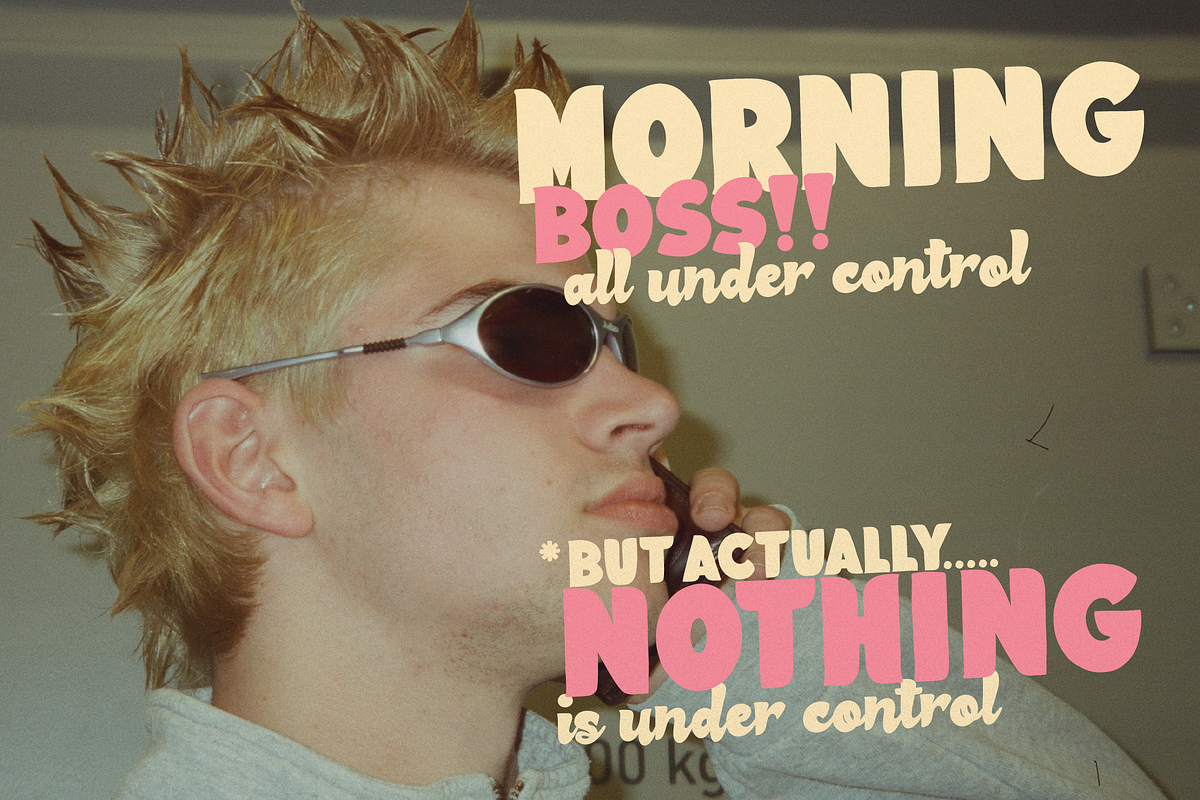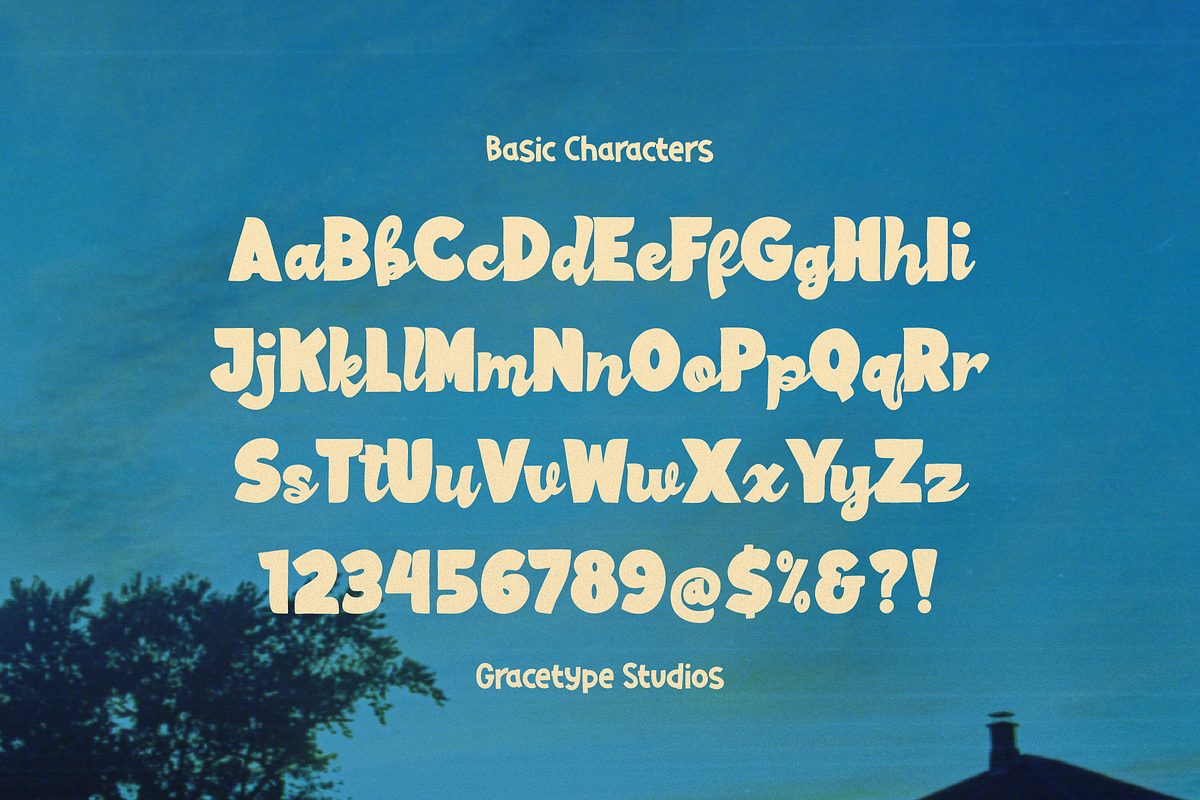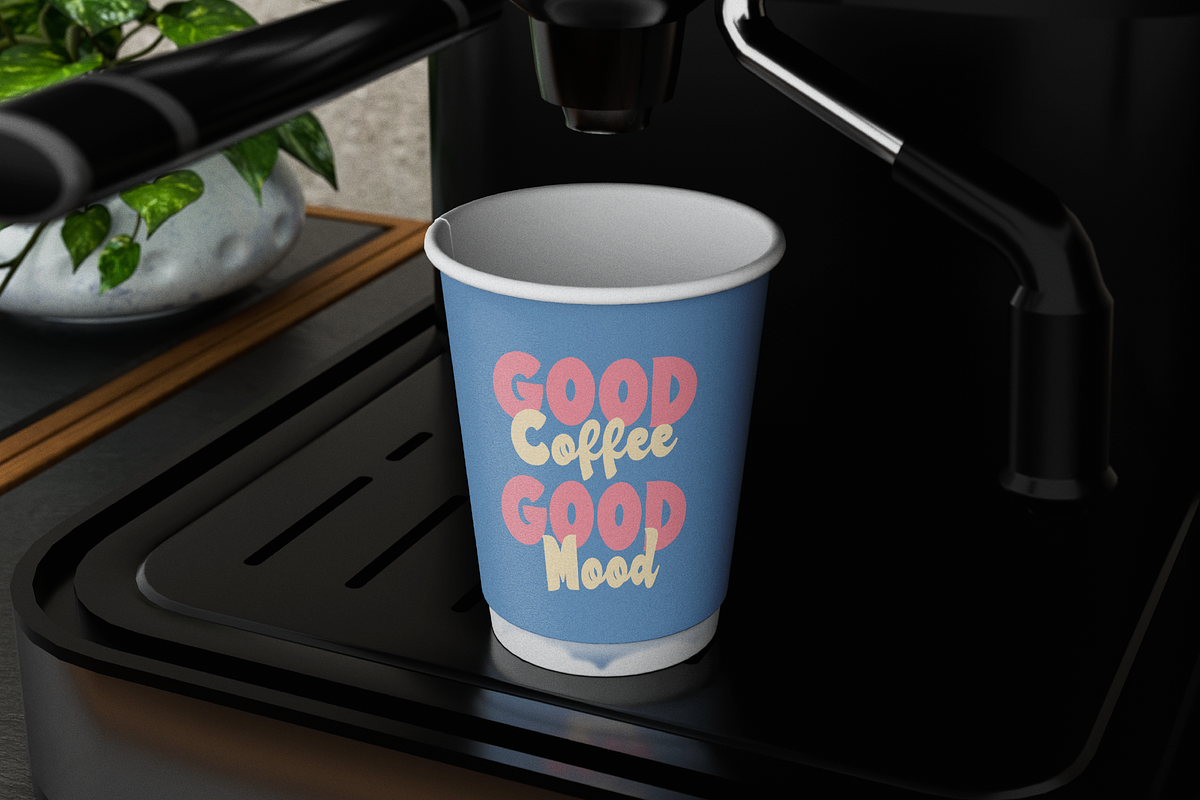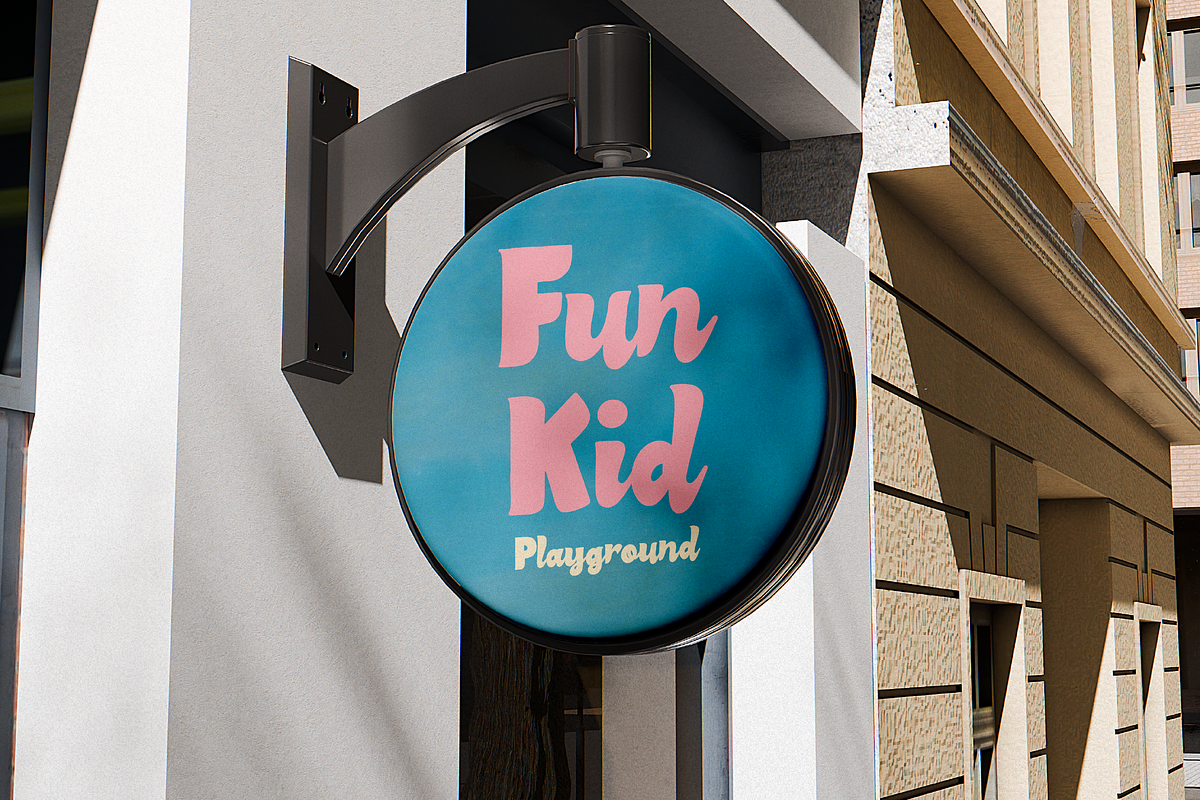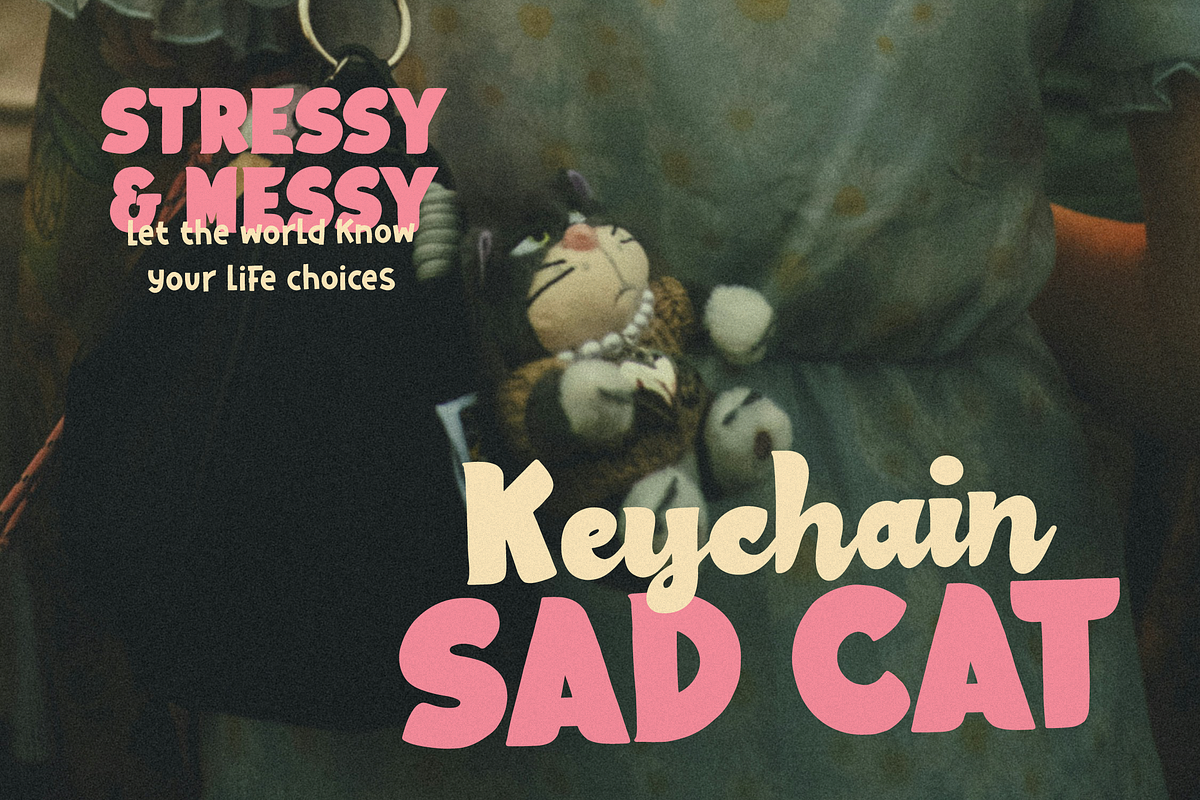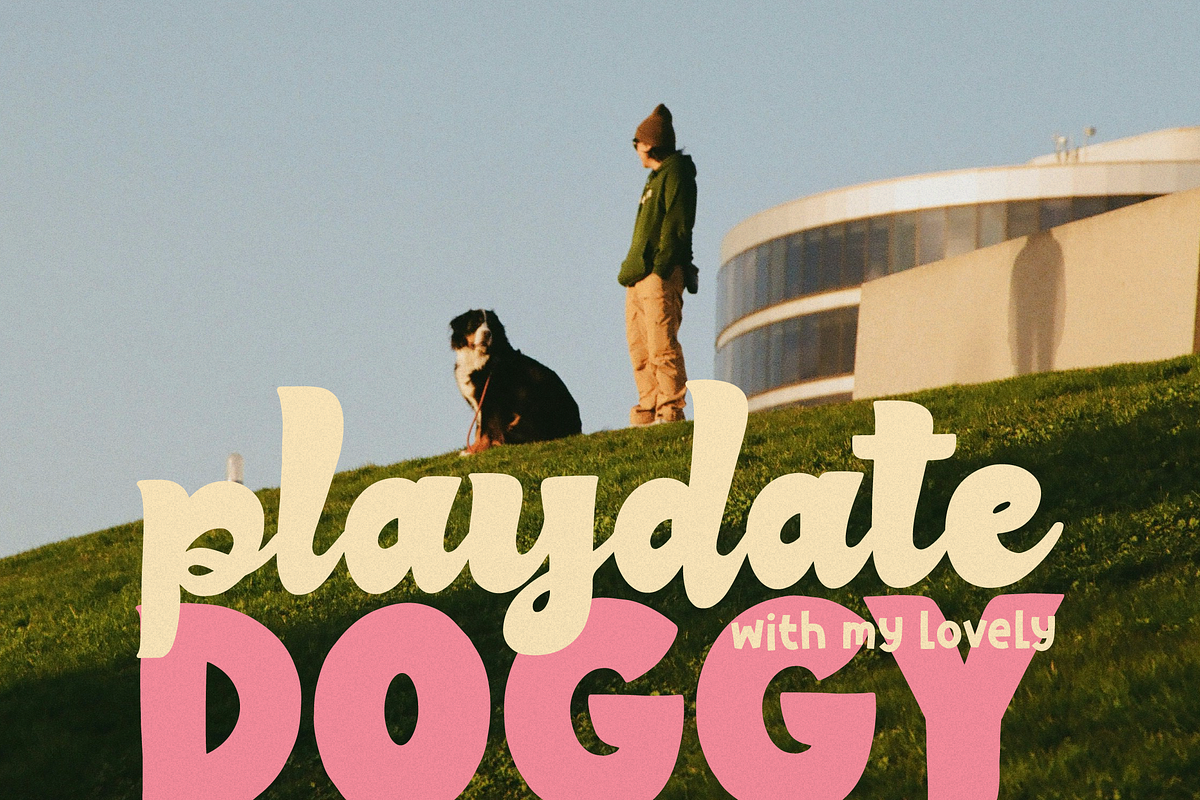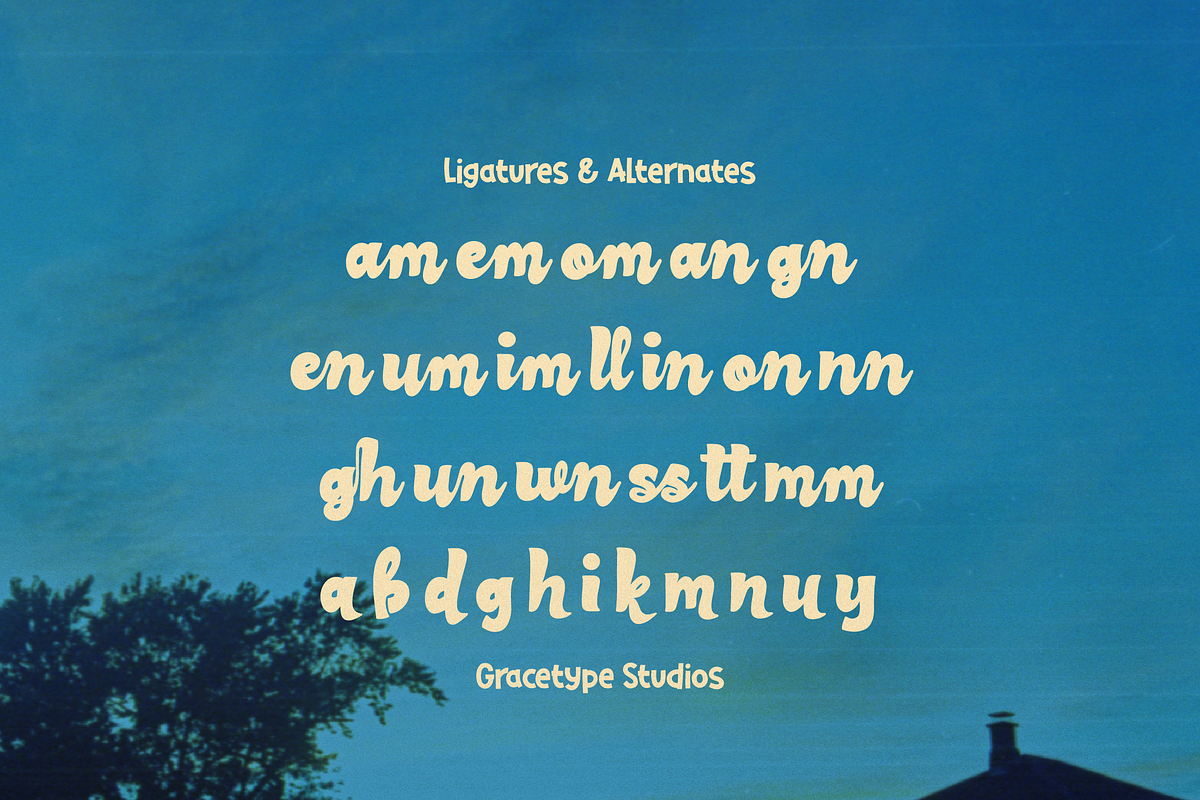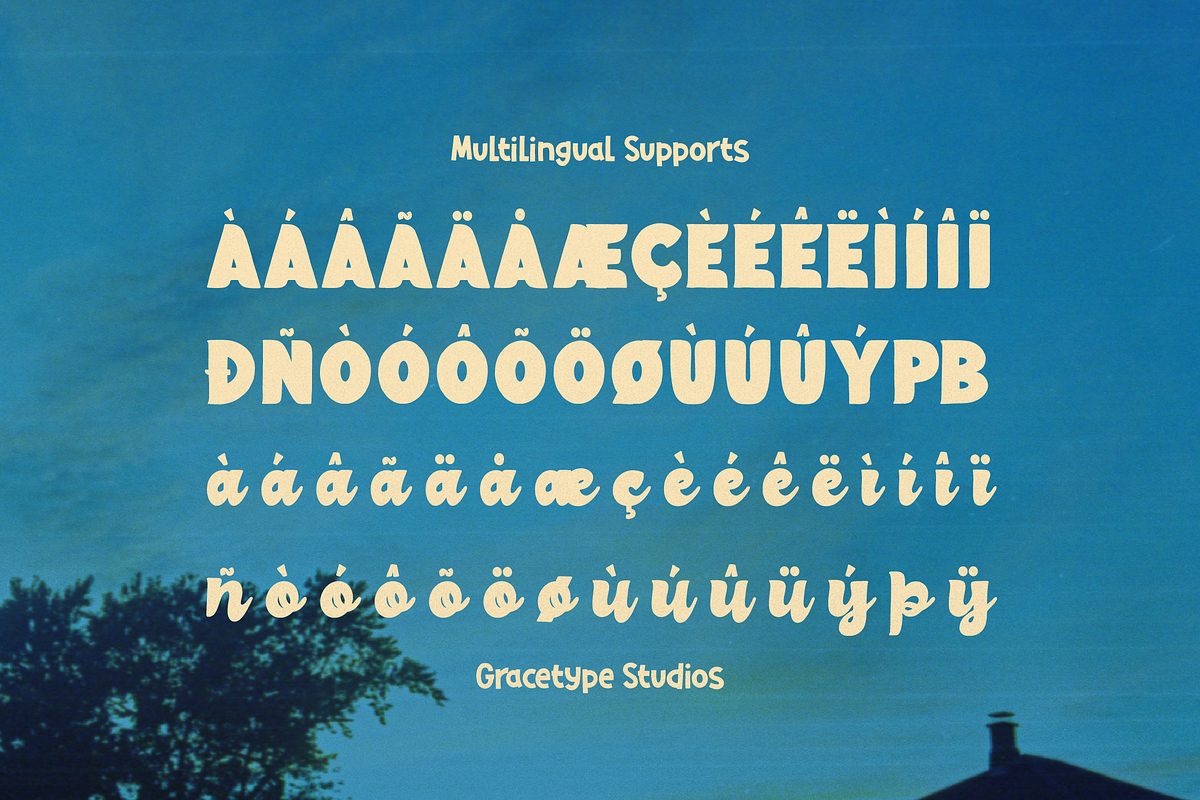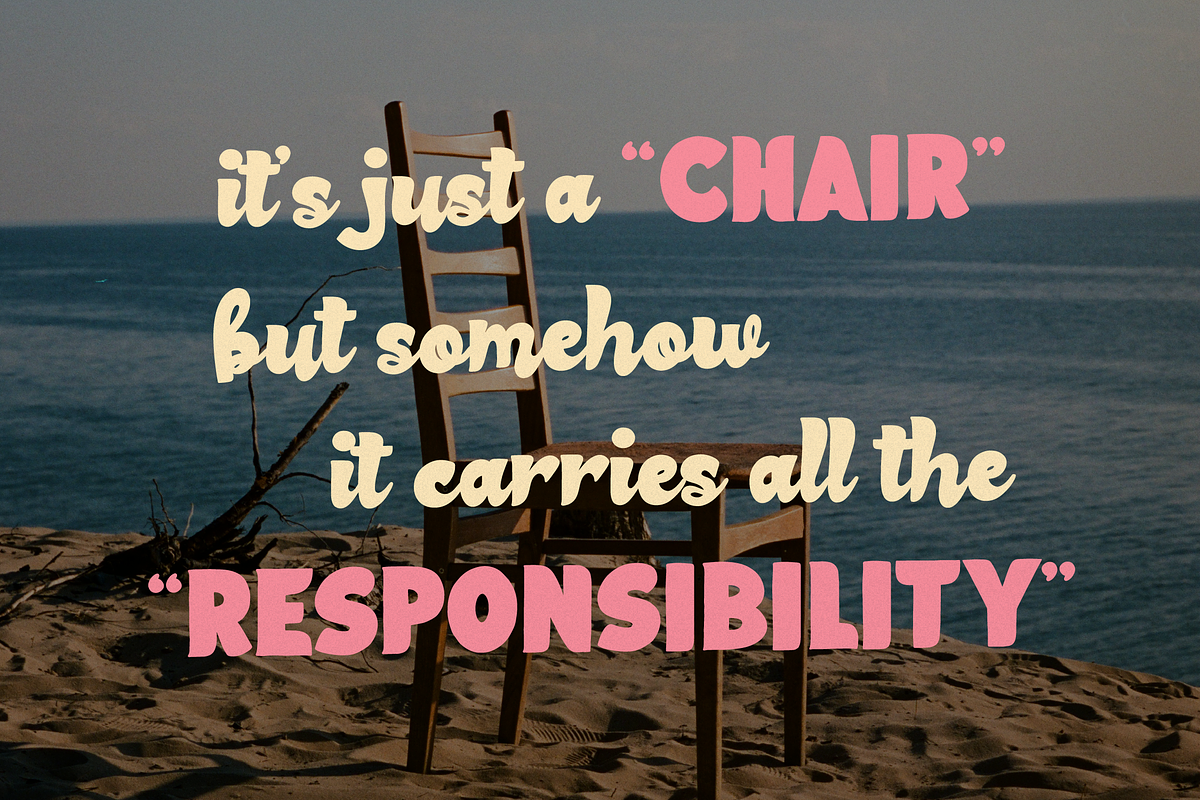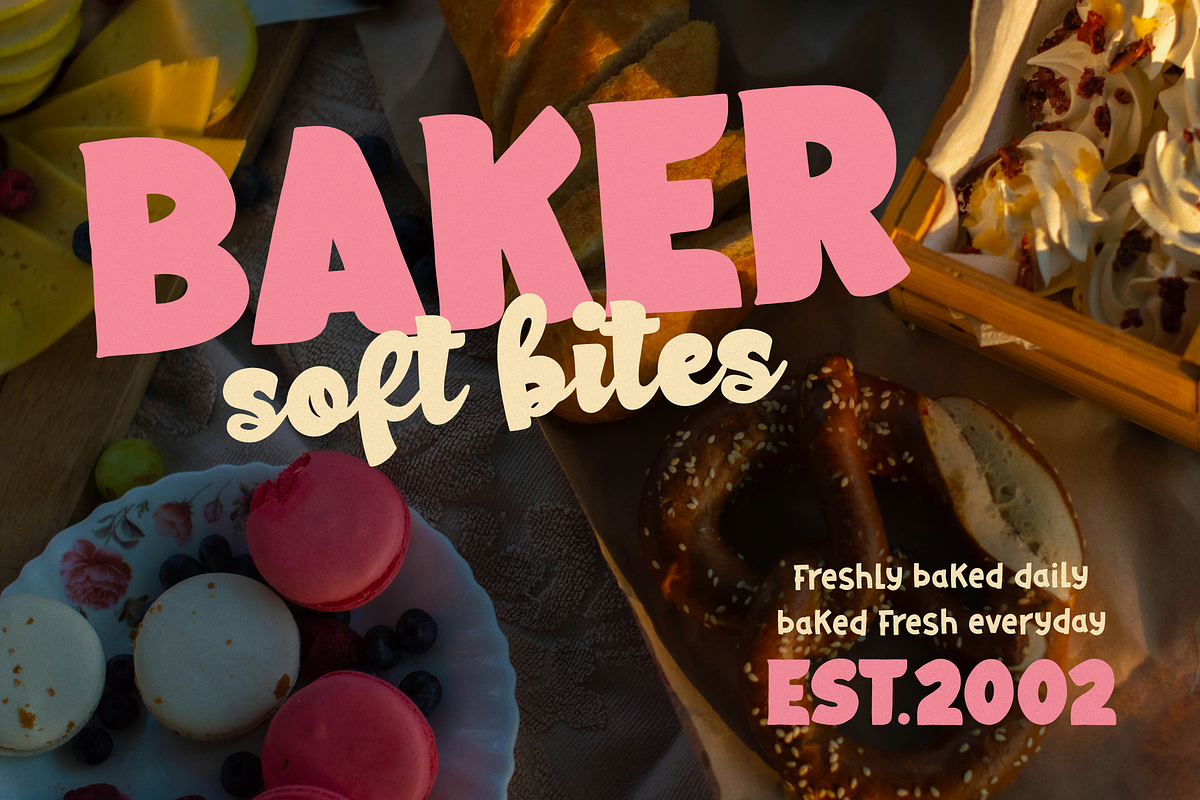
Skypie Summary | Playful Display
Skypie Summary | Playful Display, from Gracetypestudio, suitable for any projects such as: logos, branding projects, homeware designs, product packaging, mugs, quotes, posters, shopping bags, t-shirts, book covers, name card, invitation cards, greeting cards, label, photography, watermark, special events, and all your other lovely projects that need a Playful taste.
Standard glyphs
Alternate and Ligature
Fonts include multilingual support